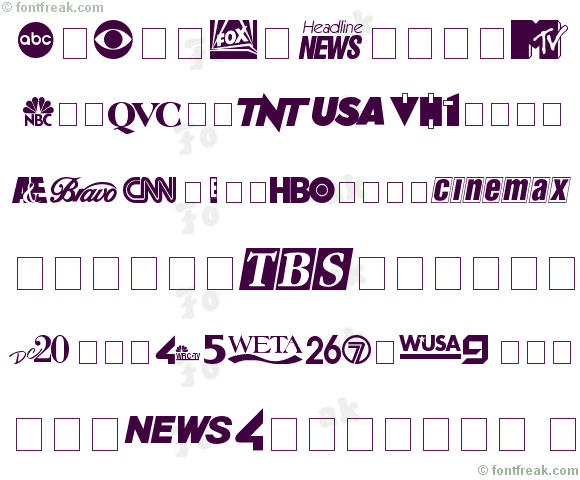
CableDingbats
About Cable Dingbats
Cable Dingbats by Gene Cowan is a distinctive collection of decorative dingbats that brings a unique flair to design projects. As a freeware font, it offers an array of symbols that are perfect for adding character and visual interest to any creative endeavor. This font falls under the category of dingbats, featuring a variety of playful icons and graphics that evoke a sense of whimsy and creativity. The design showcases a consistent stroke weight that ensures clarity while maintaining an engaging aesthetic. The spacing between elements is thoughtfully arranged, allowing for seamless integration into various layouts, while decorative elements enhance its appeal without overwhelming the design.
Cable Dingbats is particularly versatile, making it ideal for a range of applications. Graphic designers can utilize these icons in wedding invitations, adding a touch of charm and personality to the big day. Additionally, small business owners can incorporate Cable Dingbats into restaurant menus or promotional materials, effectively capturing the attention of potential customers. Content creators may find it useful for social media graphics or blog posts, where eye-catching visuals can elevate their content. Movie posters can also benefit from the playful nature of the font, providing a fun twist to traditional designs.
The target audience for this font includes graphic designers, small business owners, and content creators seeking unique visual elements to enhance their work. What sets Cable Dingbats apart is its ability to combine functionality with creativity, offering a free resource that sparks imagination and elevates design projects. With its engaging visuals and practical applications, the Cable Dingbats font free download is an essential addition for anyone looking to infuse their designs with personality and style.